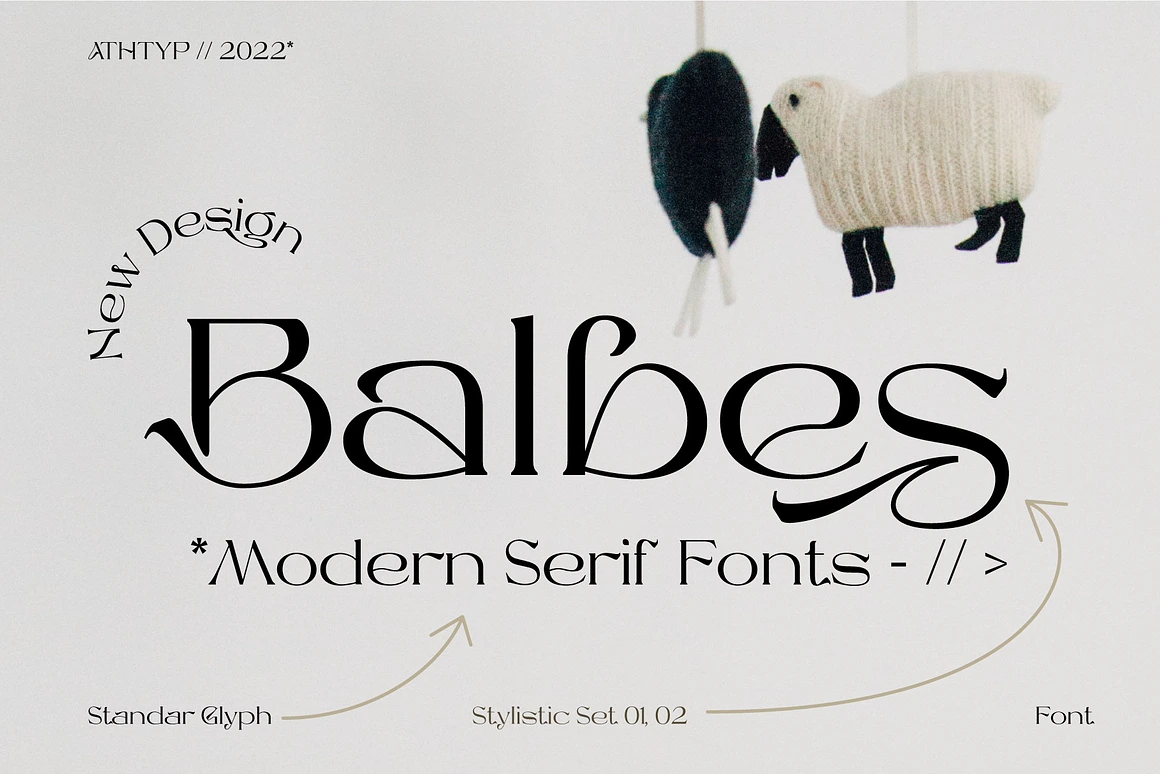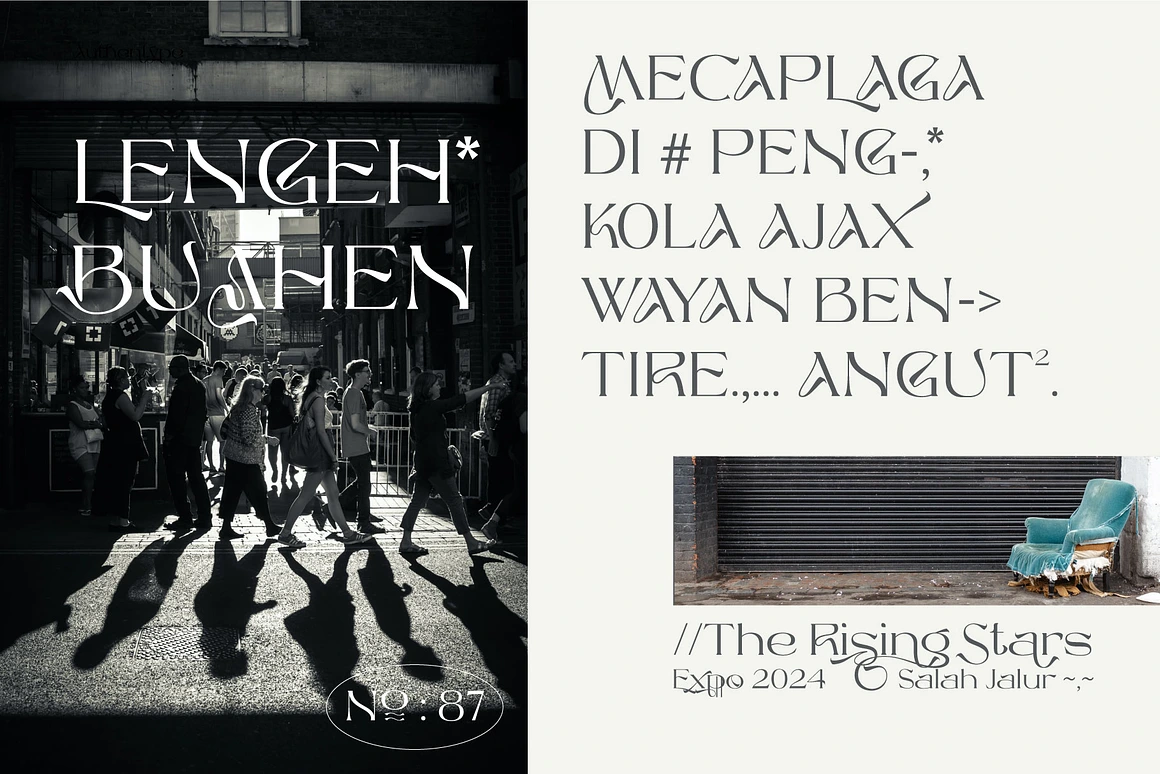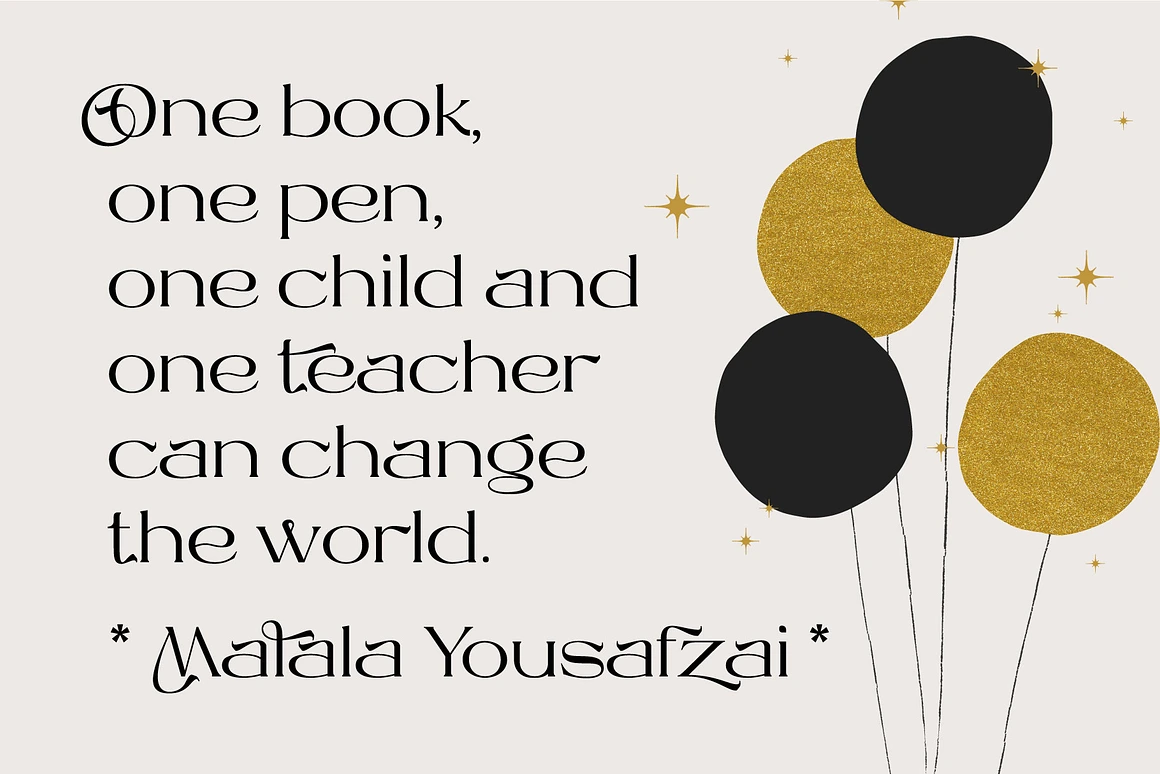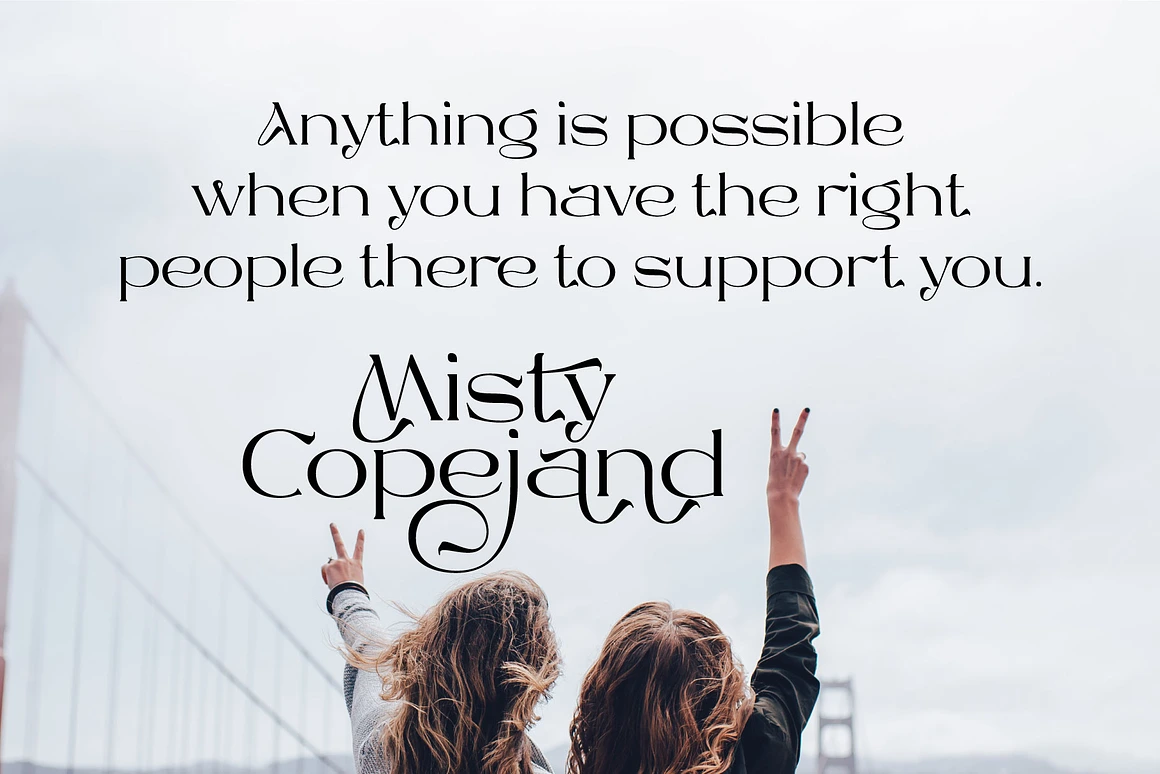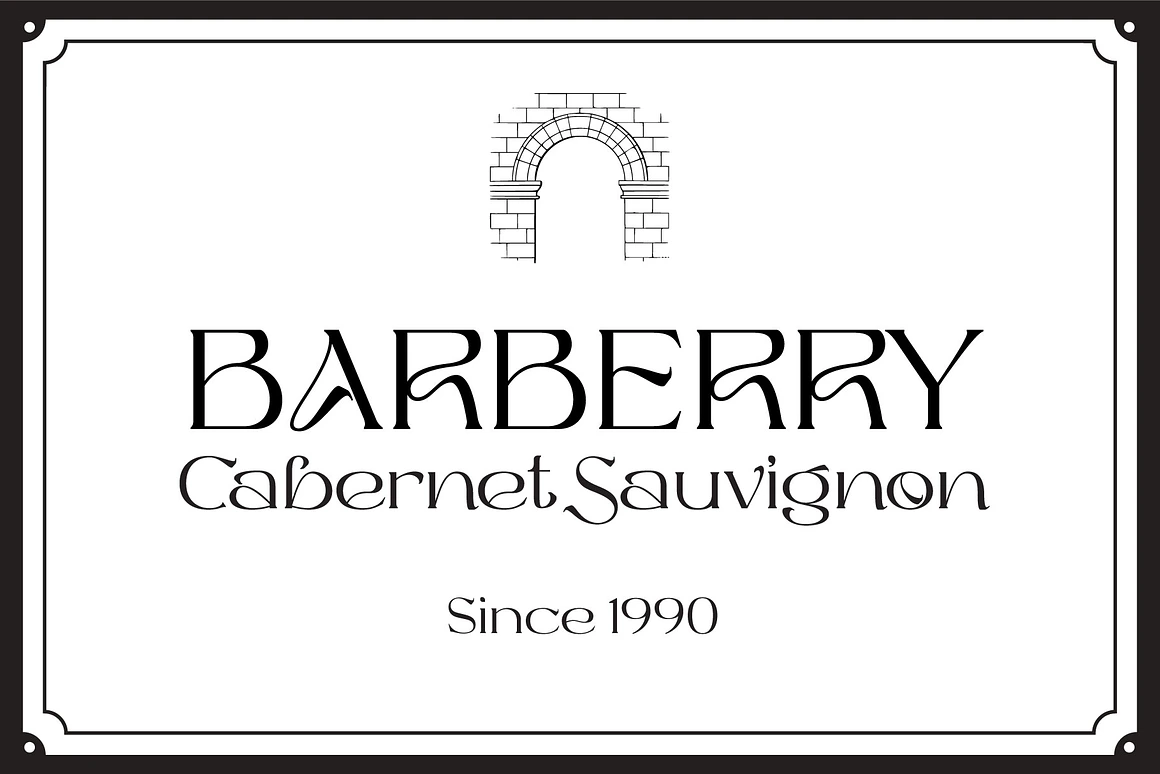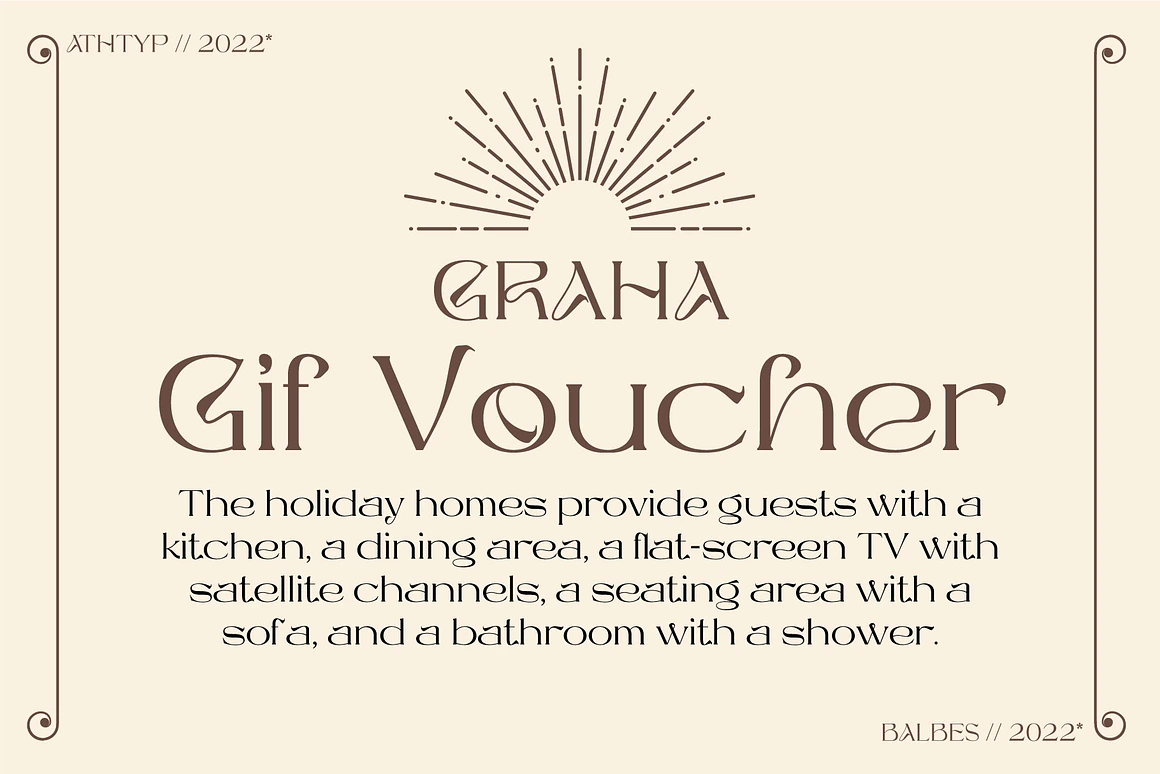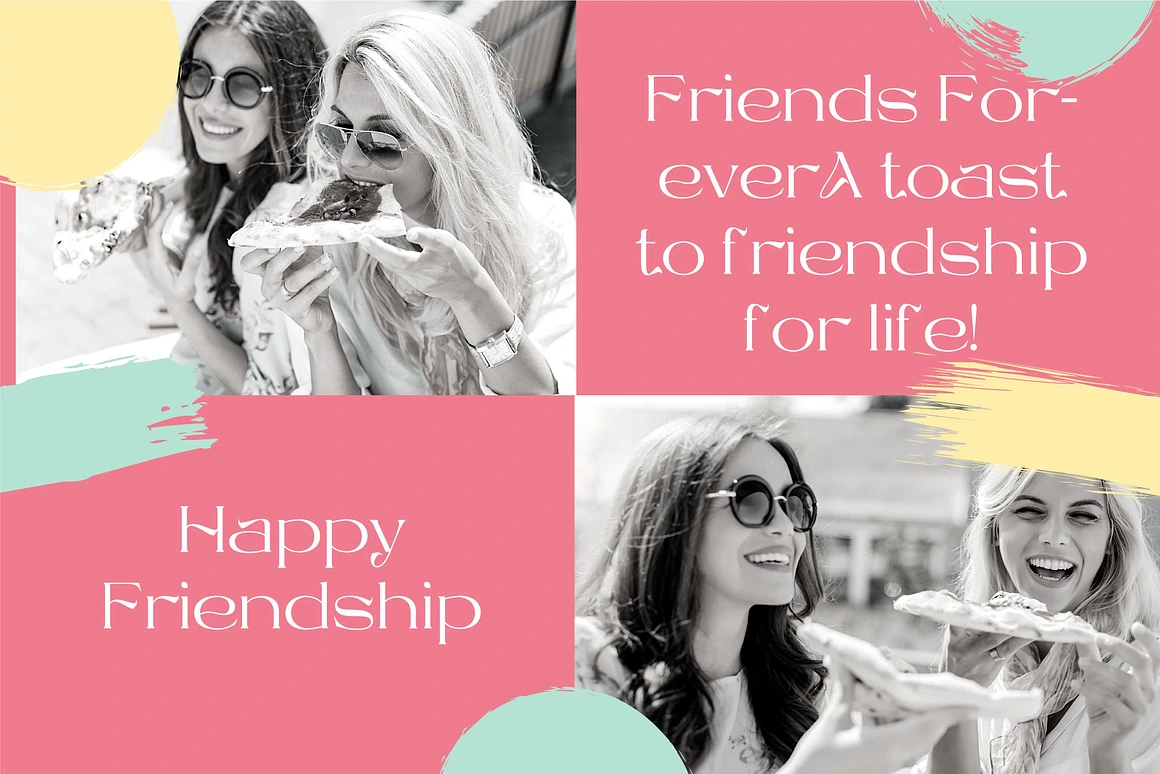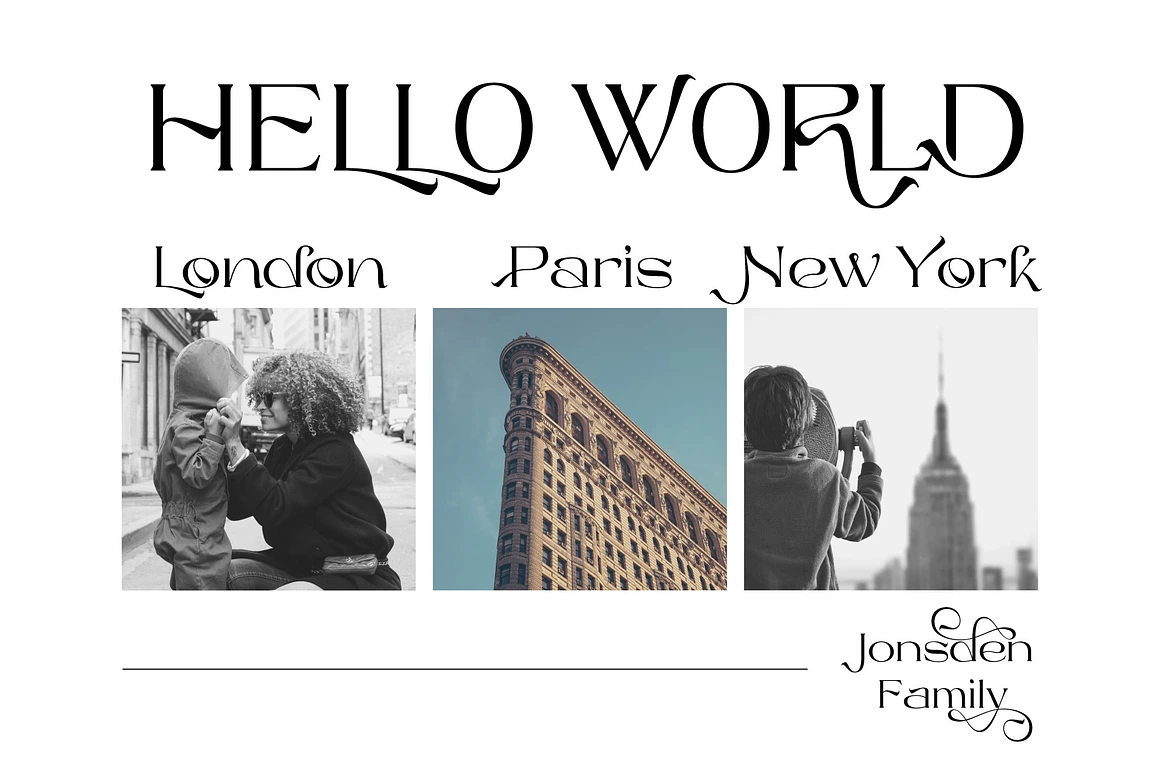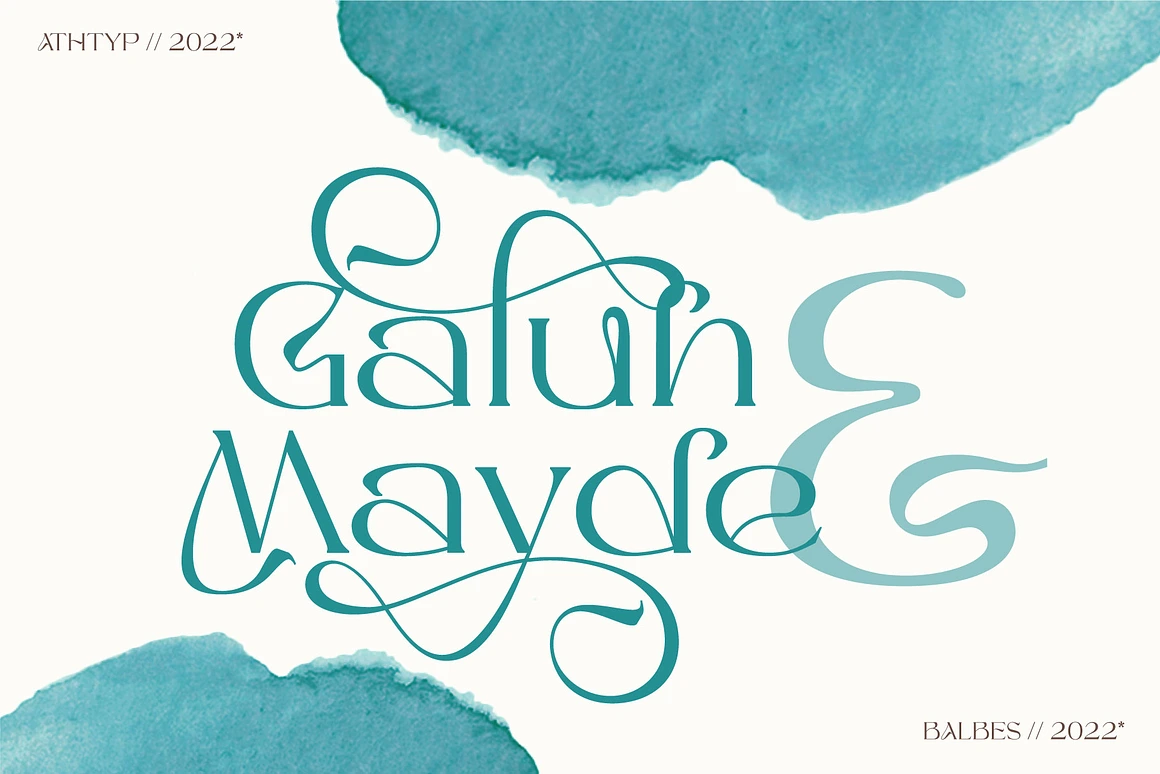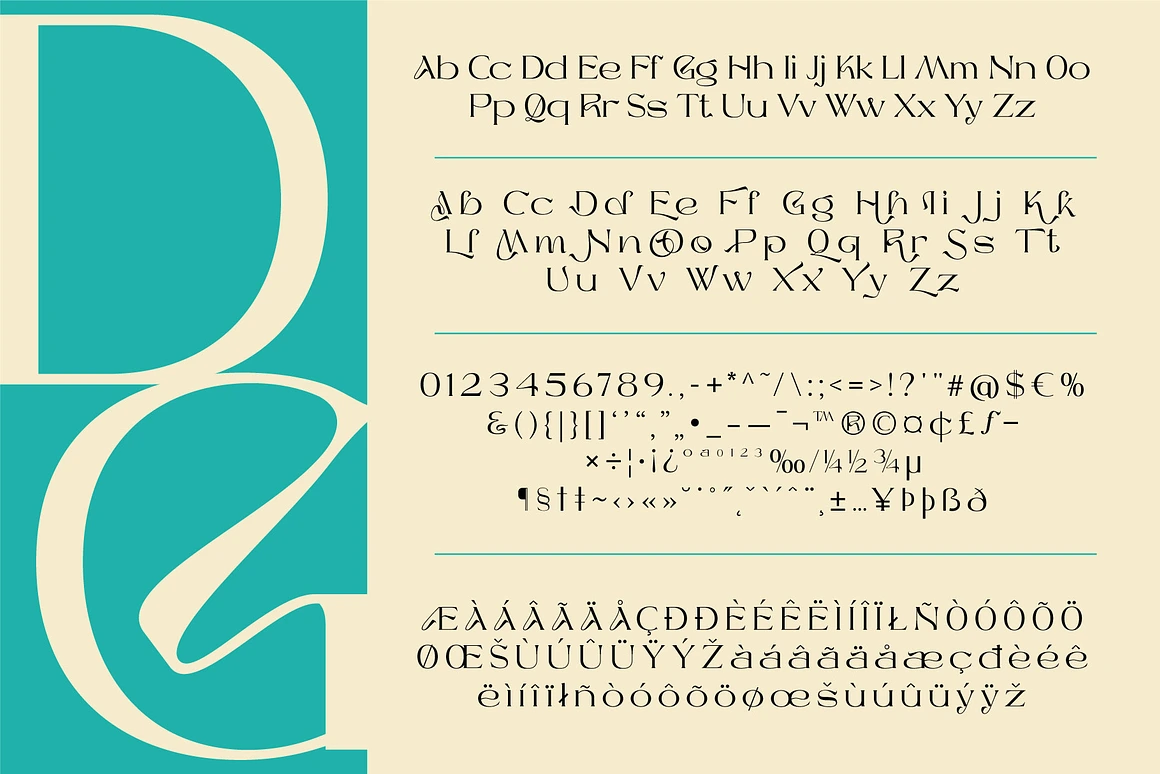
Balbes - Modern Serif Font
Balbes - Modern Serif Font with multi shapes and lines. There are two types of letters by activating stylistic alternates you will get a very contrasting feel than regular letters.
Balbes – Modern Serif Font with multi shapes and lines. There are two types of letters by activating stylistic alternates you will get a very contrasting feel than regular letters. It was also followed by the addition of swash, many ligatures, and many languages.
• Standard glyphs uppercase and lowercase letters,
• Numerals, a large range of punctuation and ligatures,
• Swashes,
• Stylistic Set,
• Multilingual,